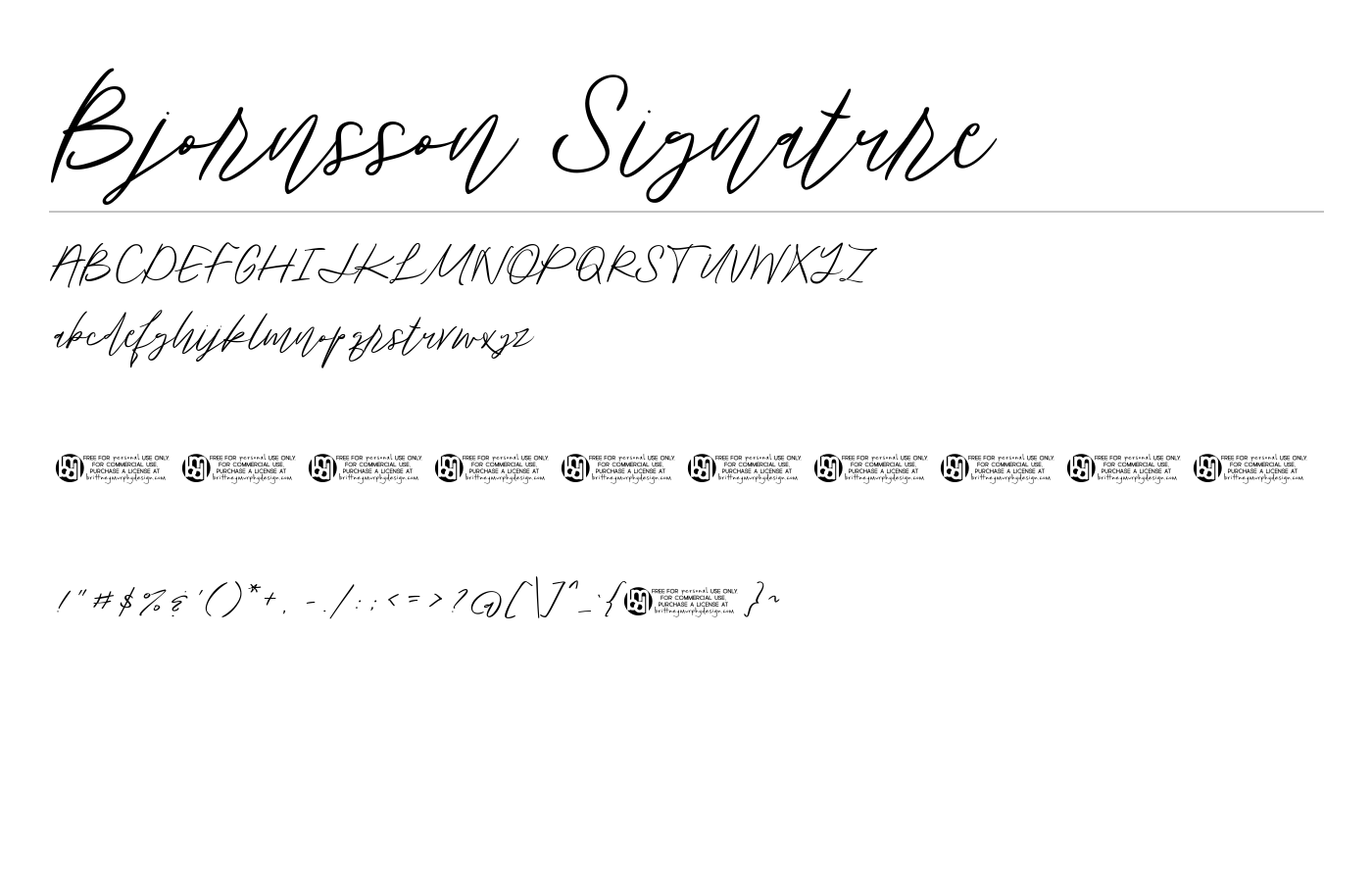
Bjornsson Signature Font is a delicate and stylish script typeface that mimics elegant, flowing handwriting with thin, graceful strokes and a personal touch. Its slender, airy letterforms and smooth connections make it ideal for branding, wedding invitations, and sophisticated logos where a refined and intimate feel is desired. This font works beautifully in designs that need a modern, handwritten charm with a light and artistic personality.
Bjornsson Signature Font
About Bjornsson Signature Font